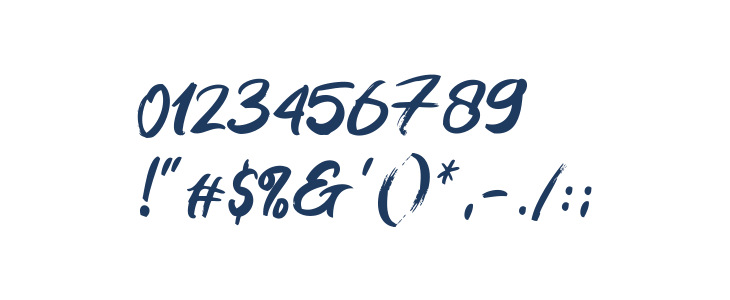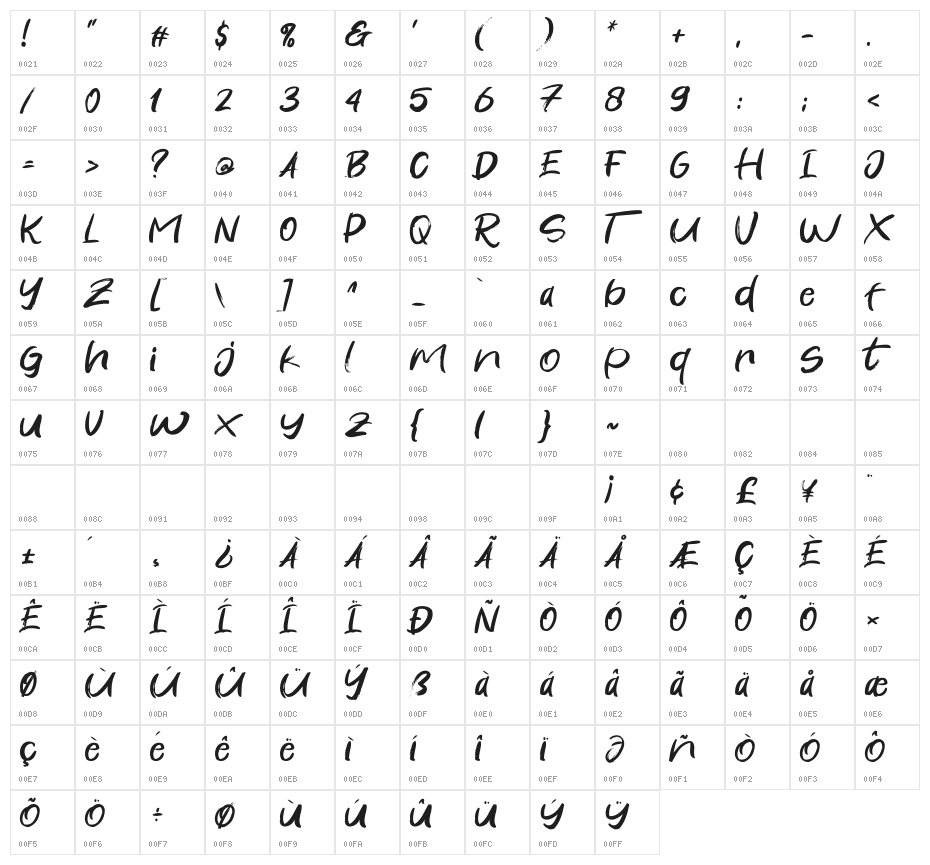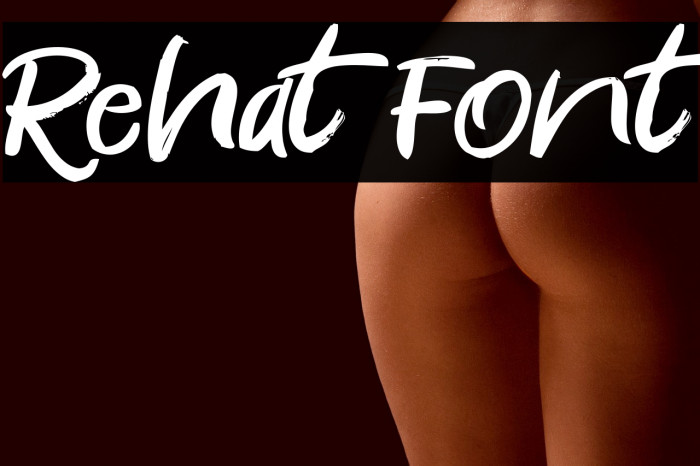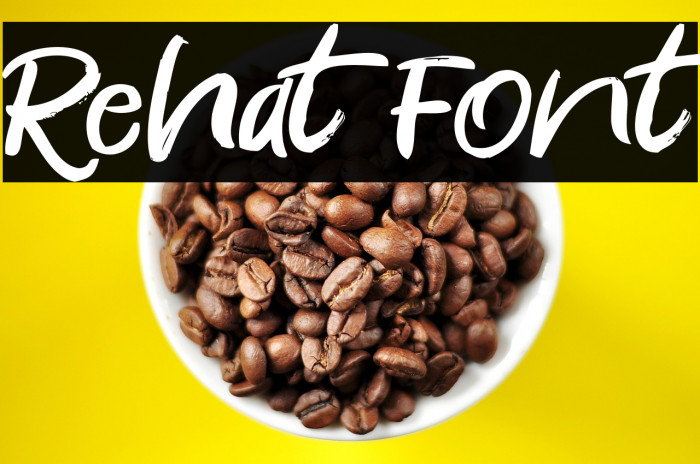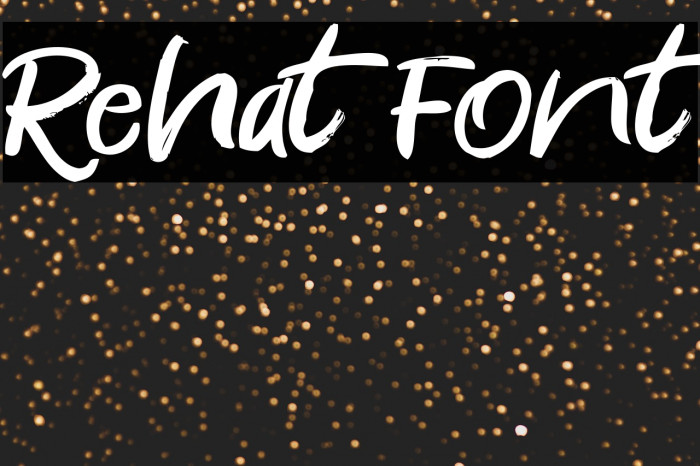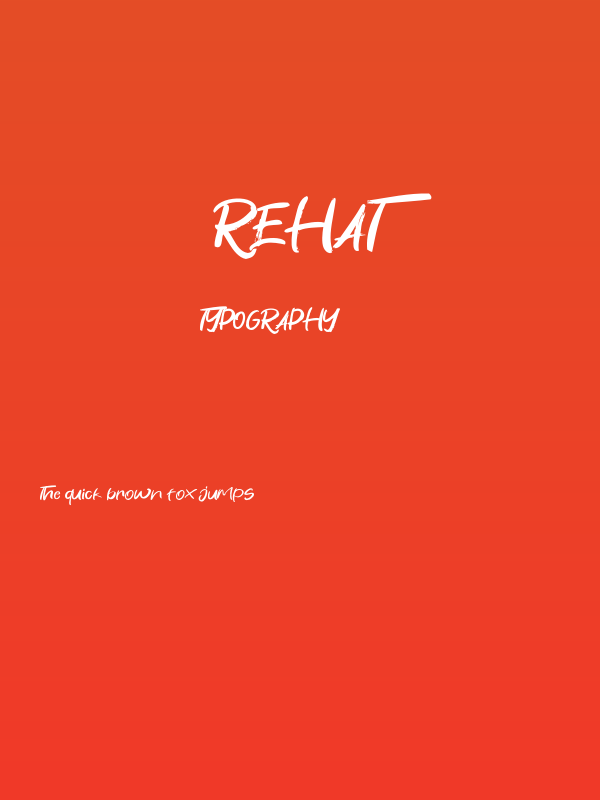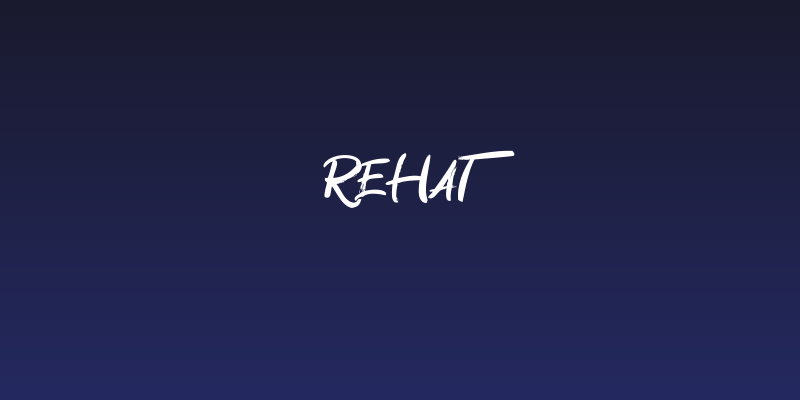
Rehat Font
Rehat Description
This font exudes a bold and expressive handwritten style, characterized by its dynamic brush strokes and fluid motion. Each letter is crafted with a sense of movement, giving it an energetic and artistic flair. The uppercase and lowercase letters maintain a consistent style, with varying thickness that adds depth and personality. Numbers and special characters are equally expressive, making them stand out with their unique brush-like appearance. This font is perfect for projects that require a personal touch, as it conveys creativity and spontaneity.
| Use Case | Logos, Headlines, Posters, Invitations |
| Proposed Projects | Ideal for artistic projects, branding, posters, invitations, and any design requiring a personal, creative touch. |